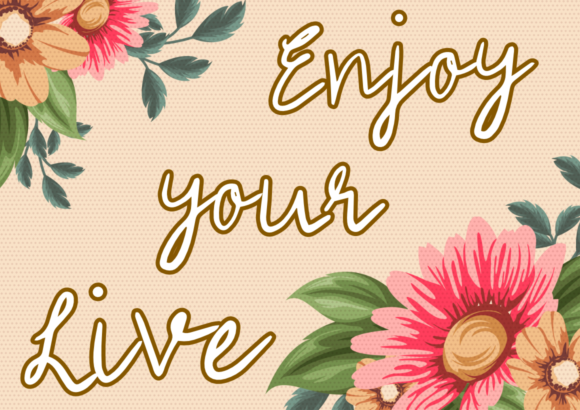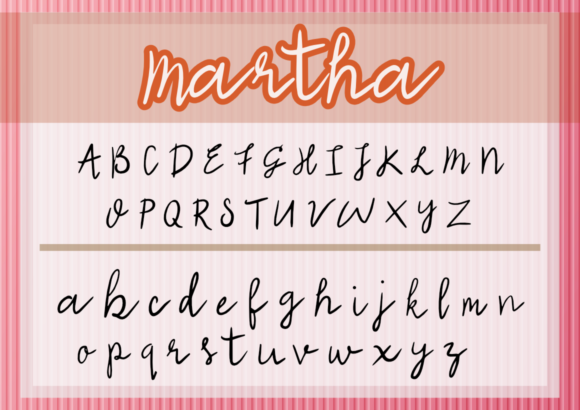
Martha Font
About Martha Font
Martha is a joyful and modern handwritten font with an incredibly friendly feel. This font is ideal for making outstanding designs, both formal and non-formal. Fall in love with Martha and bring your projects to the highest levels!